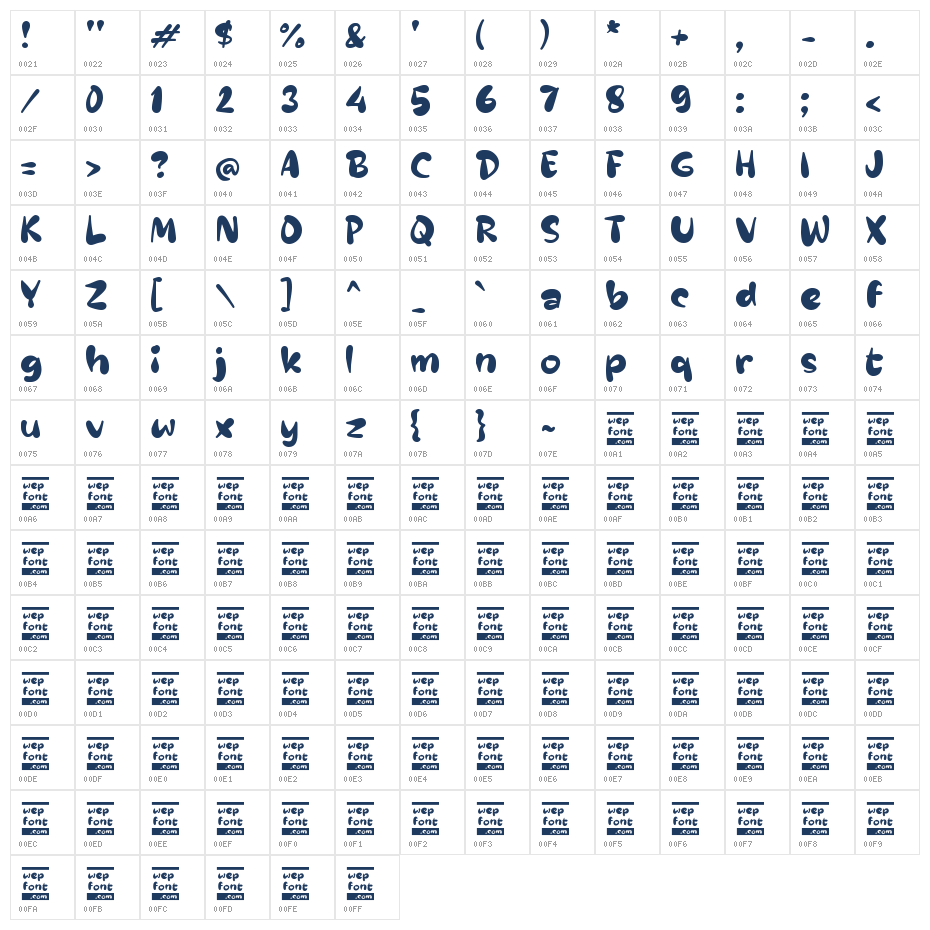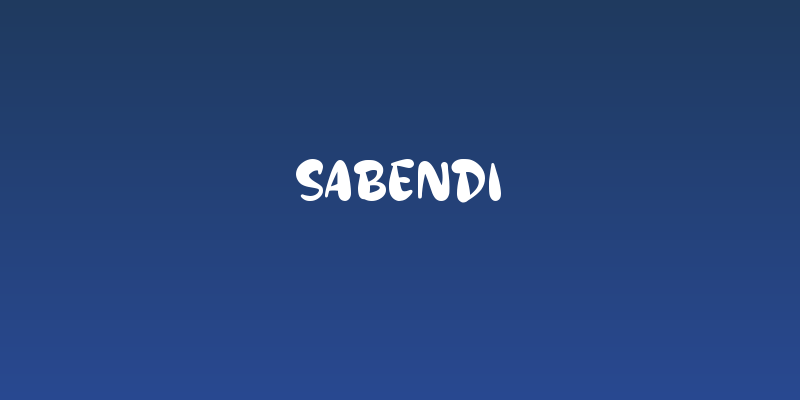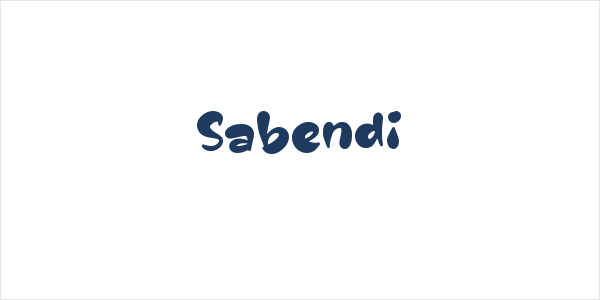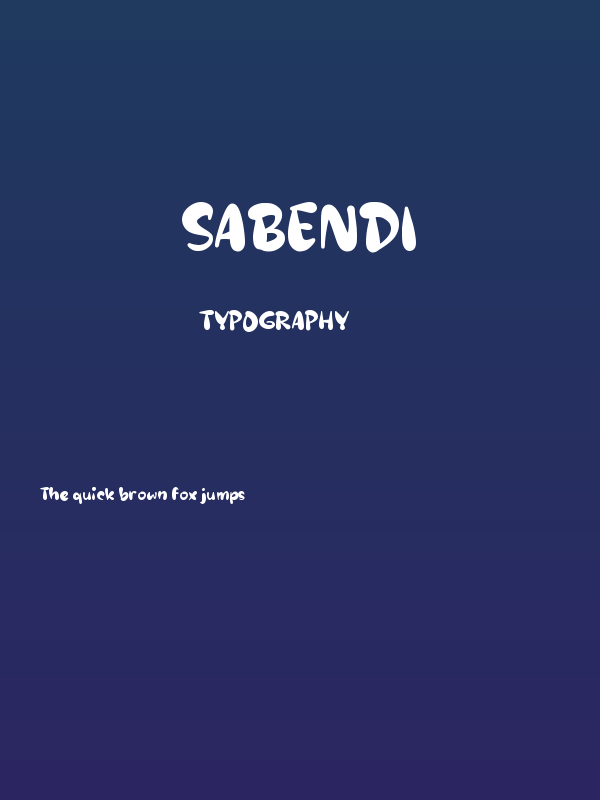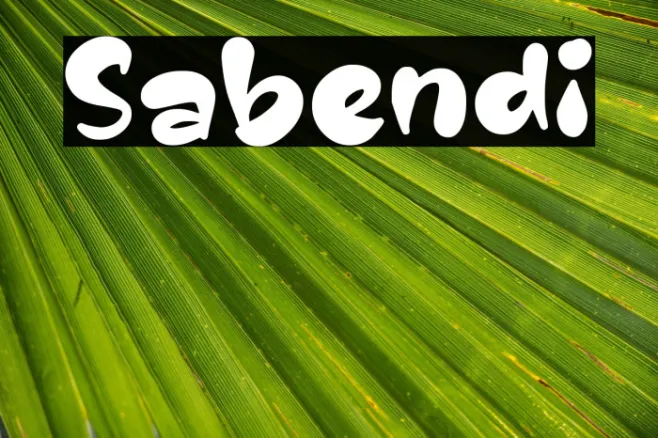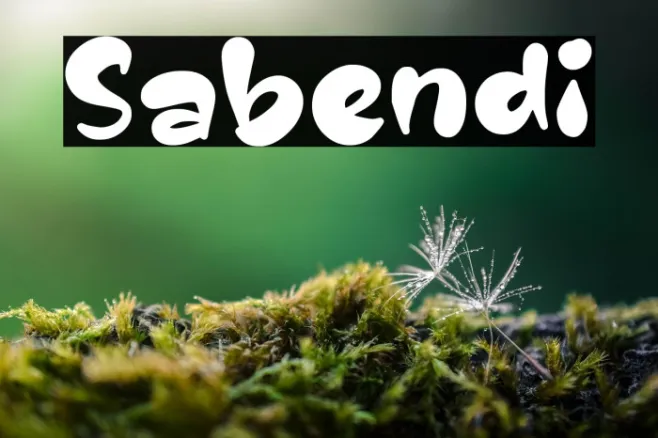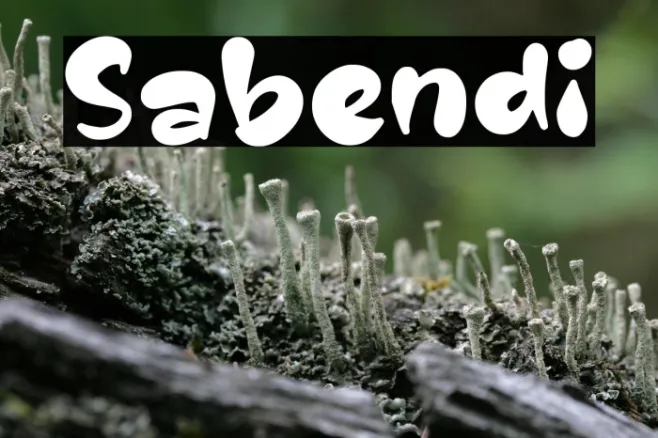
Sabendi Font
Sabendi Description
A playful, rounded, handwritten style font with a casual and friendly appearance.
| Overall Style | Casual, Playful, Friendly |